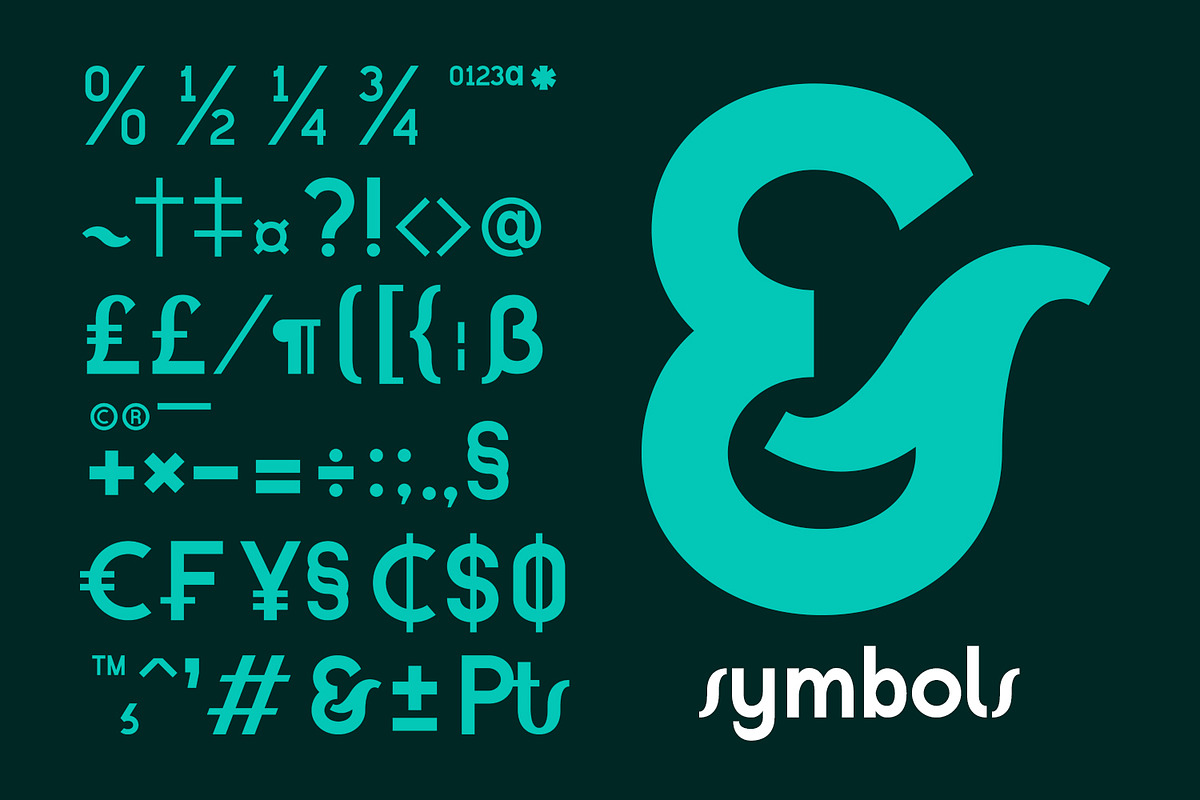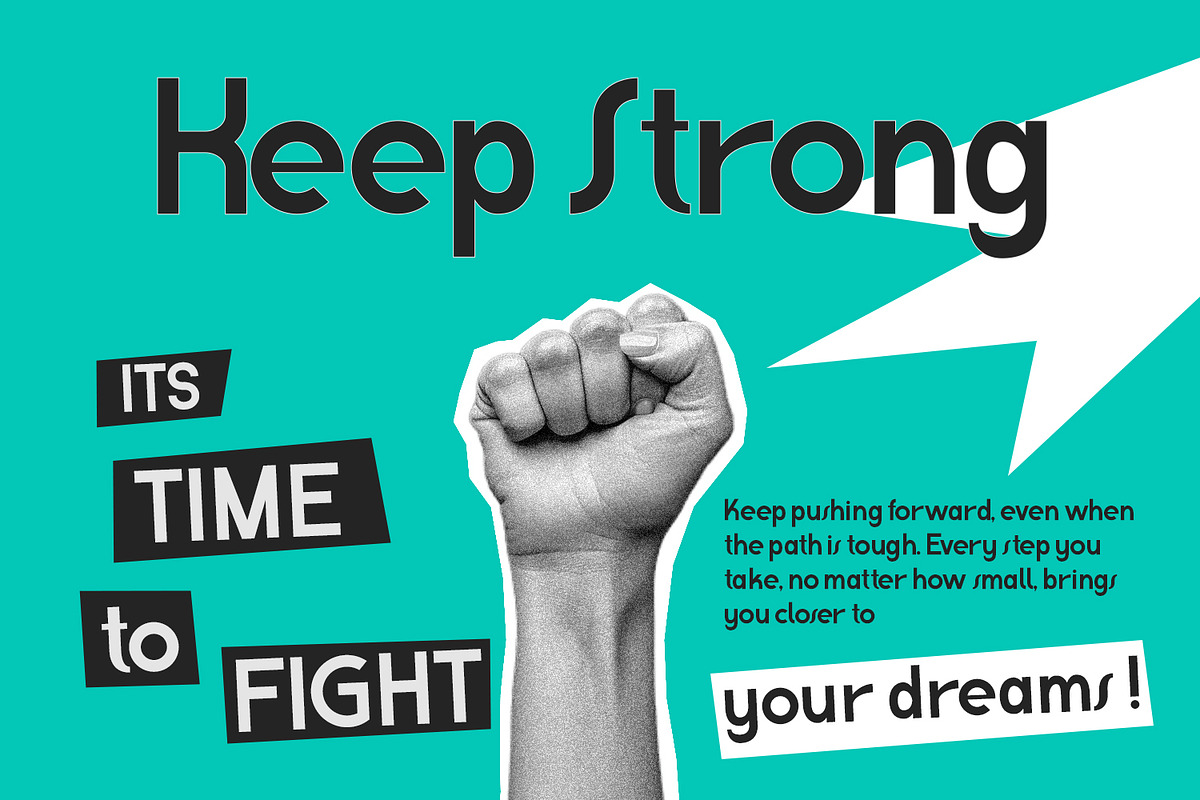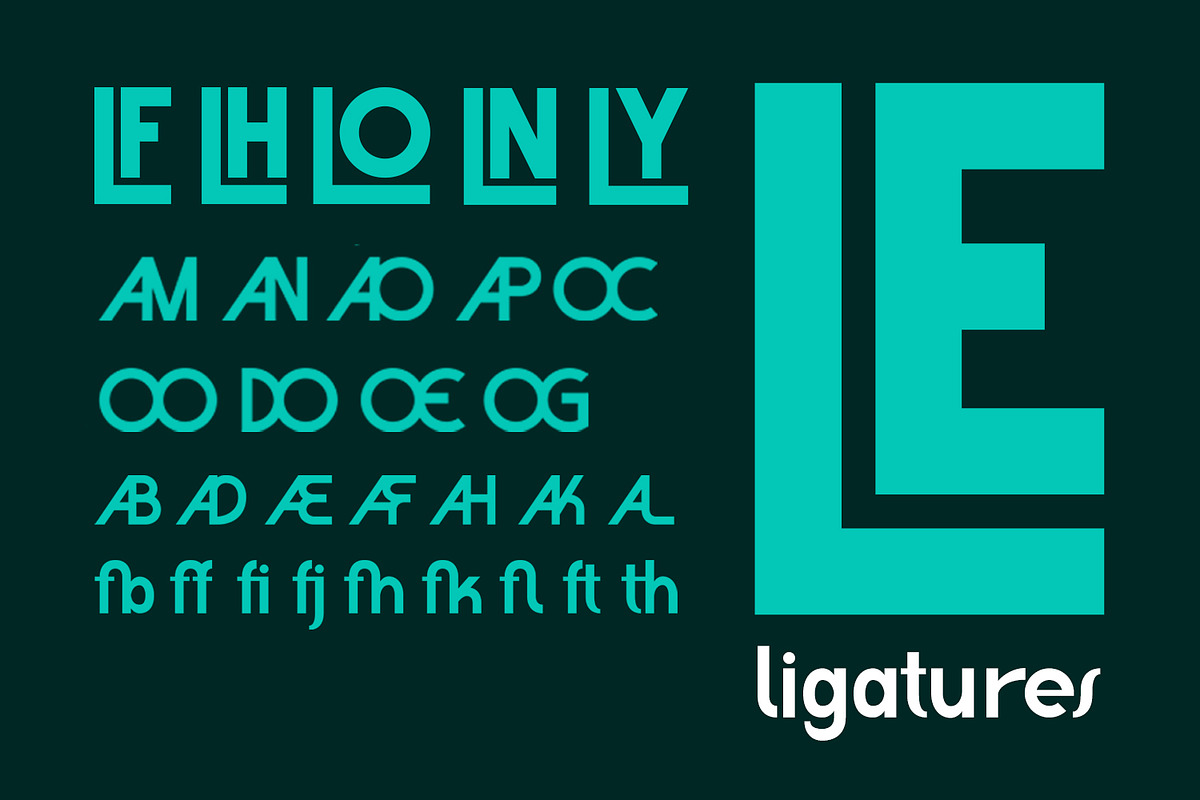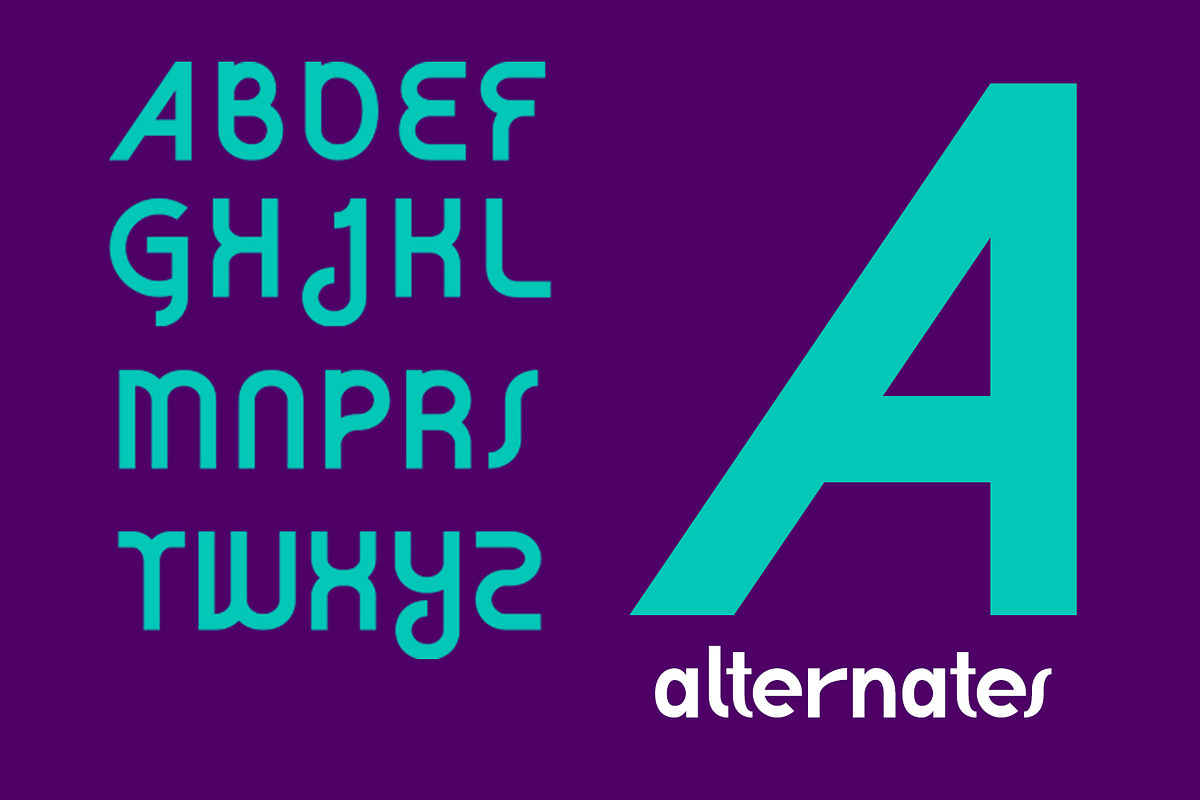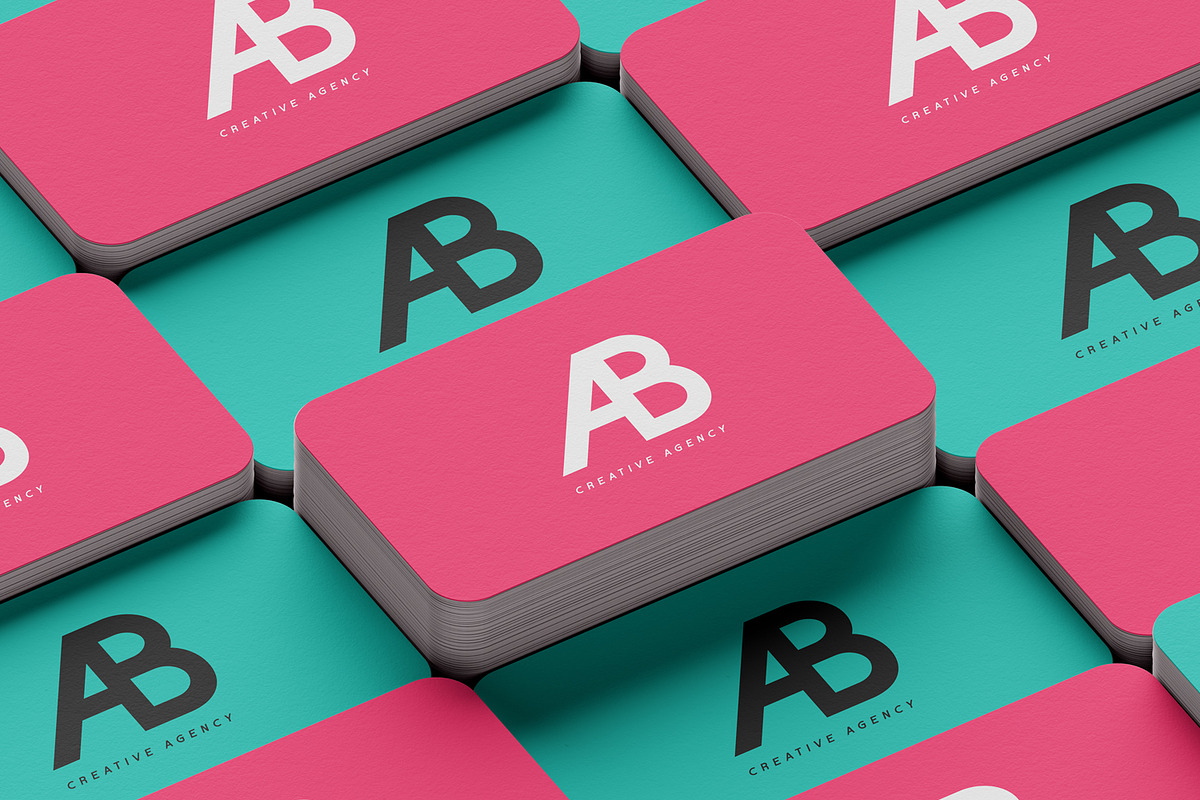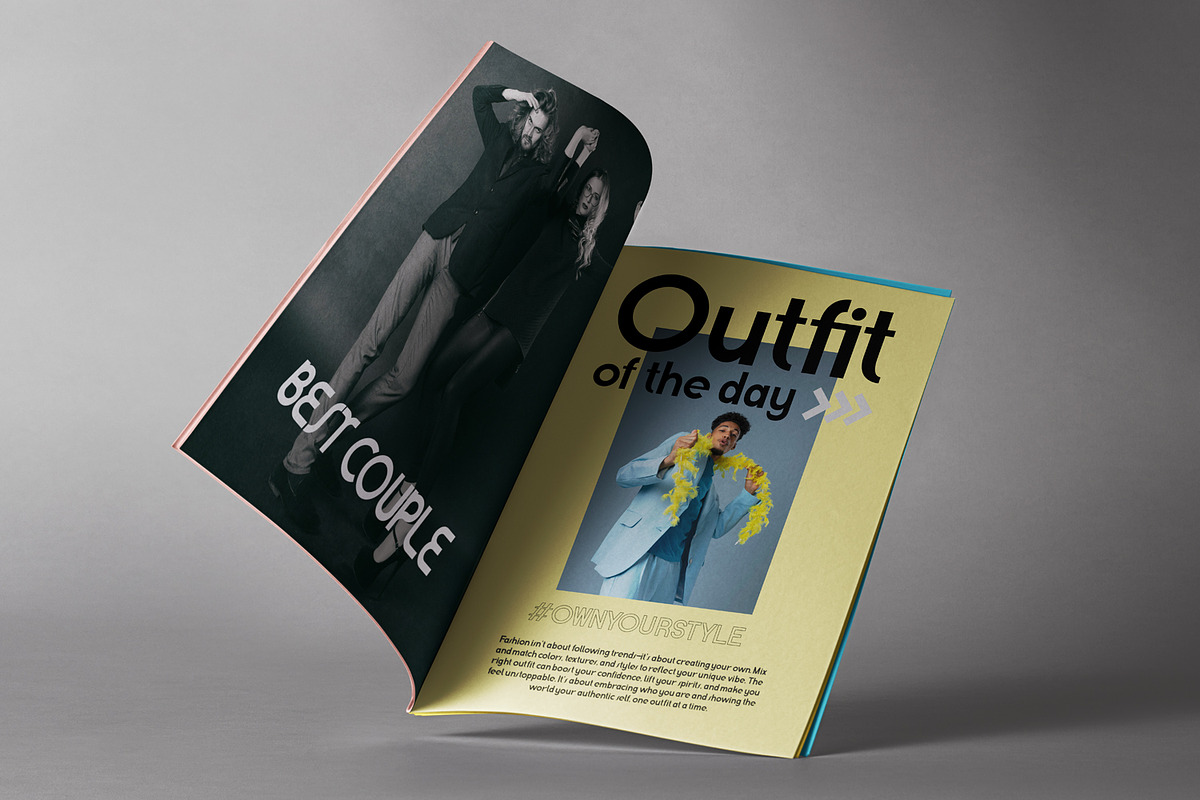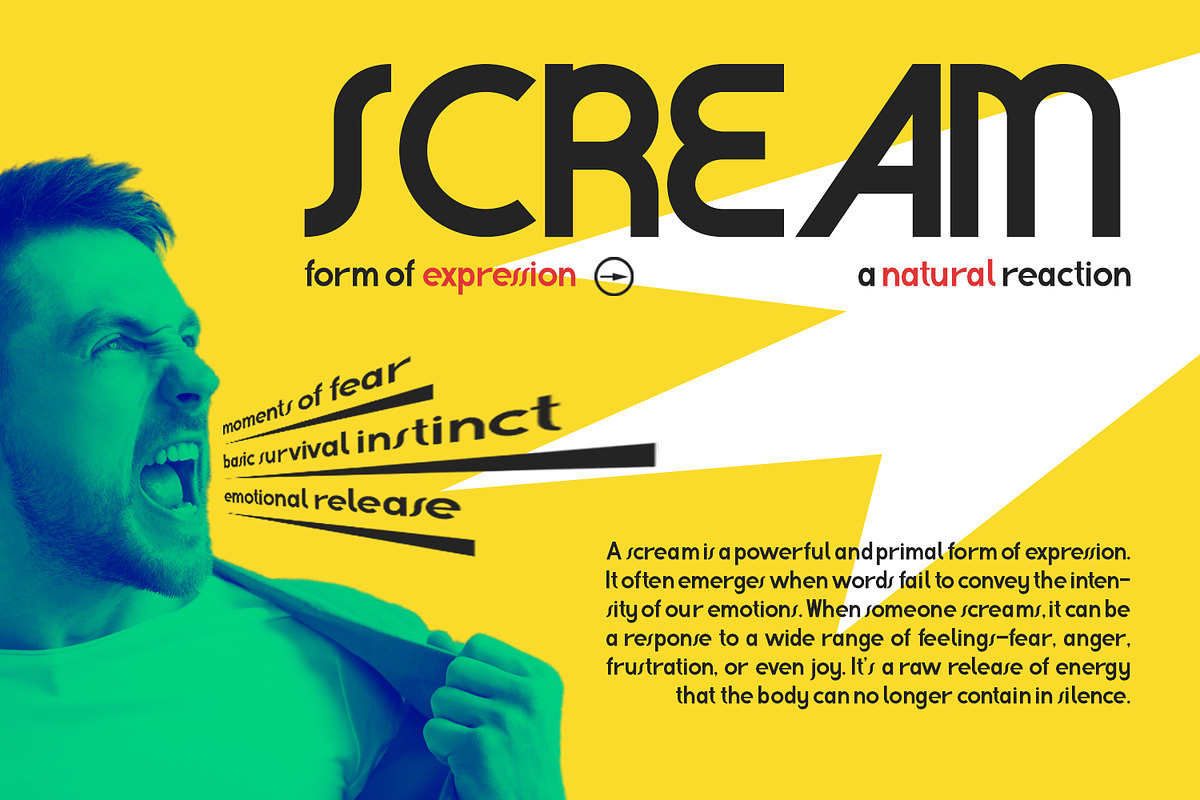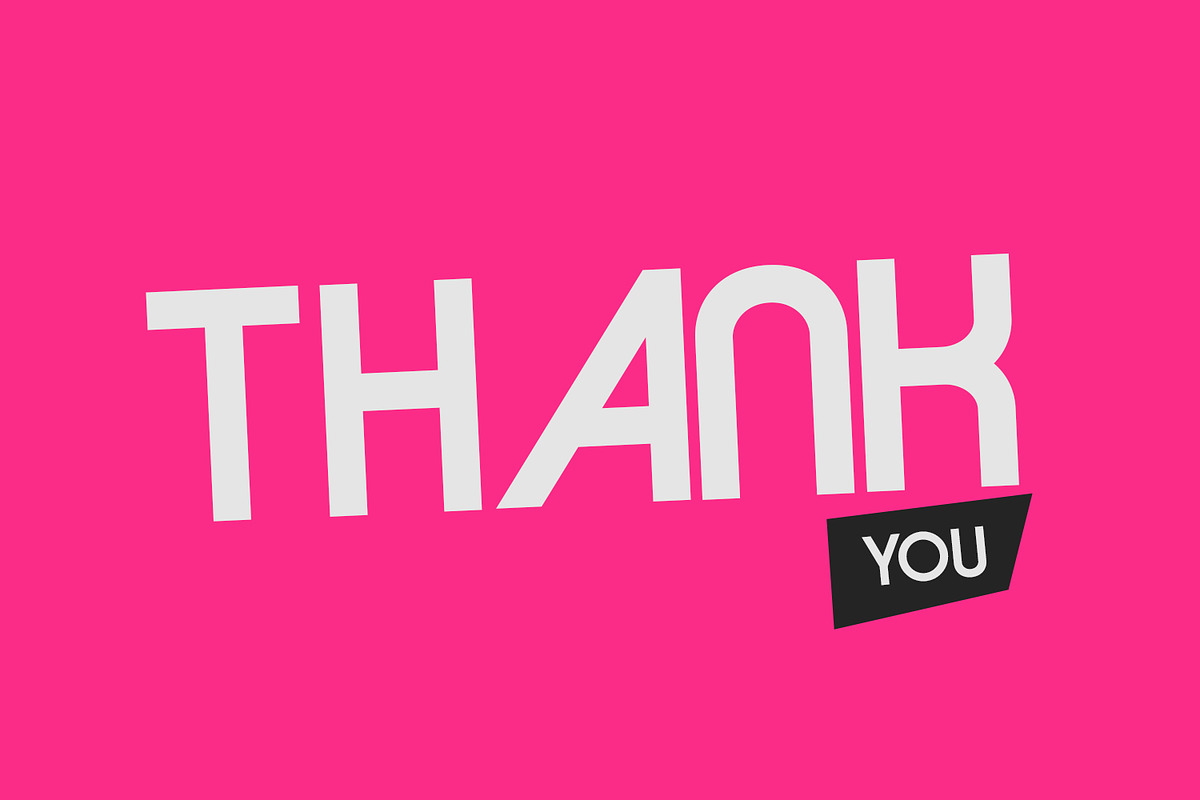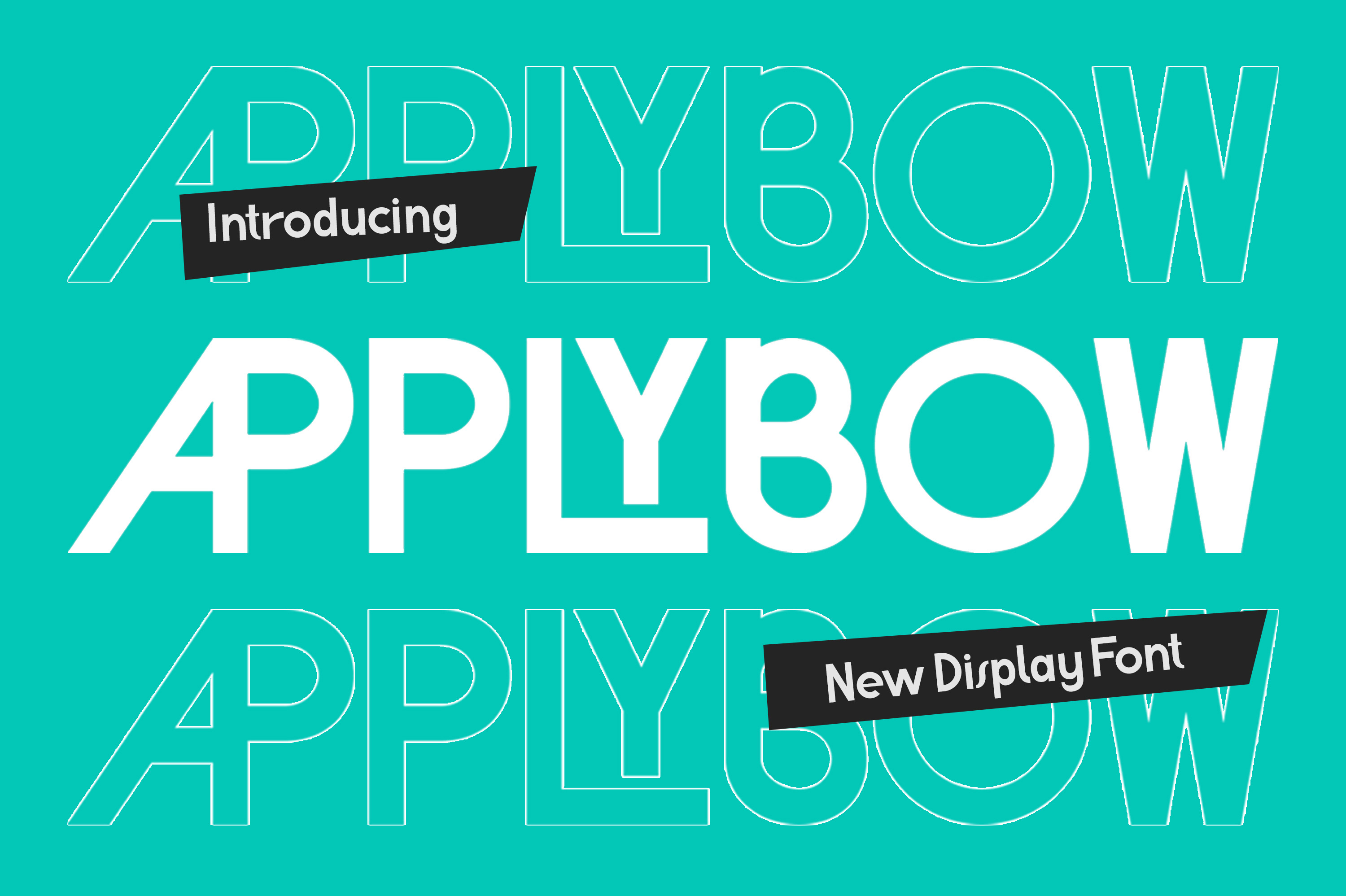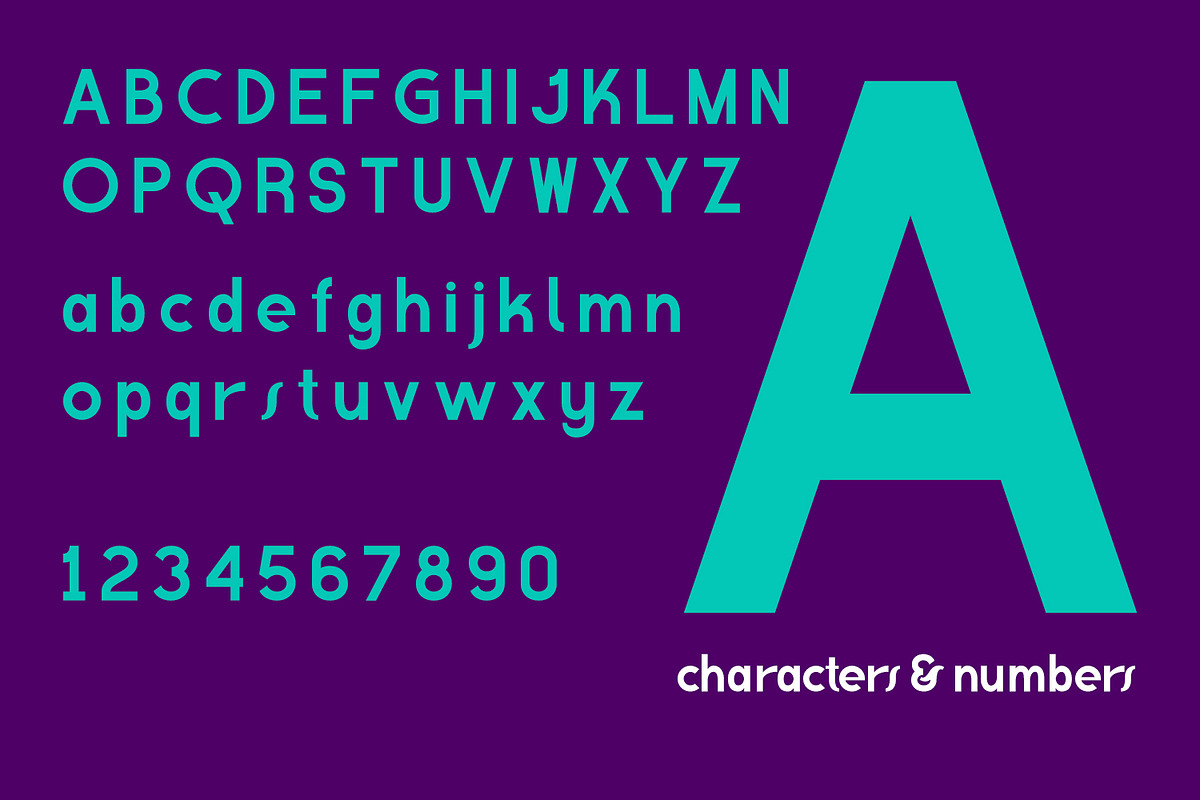
Applybow - Modern Display Font
Applybow - Modern Display Font, from Favowrite Studios, is a premium Font, perfect for any project that requires a distinctive, and premium feel.
- Ligature, Alternate & amp; Multilingual